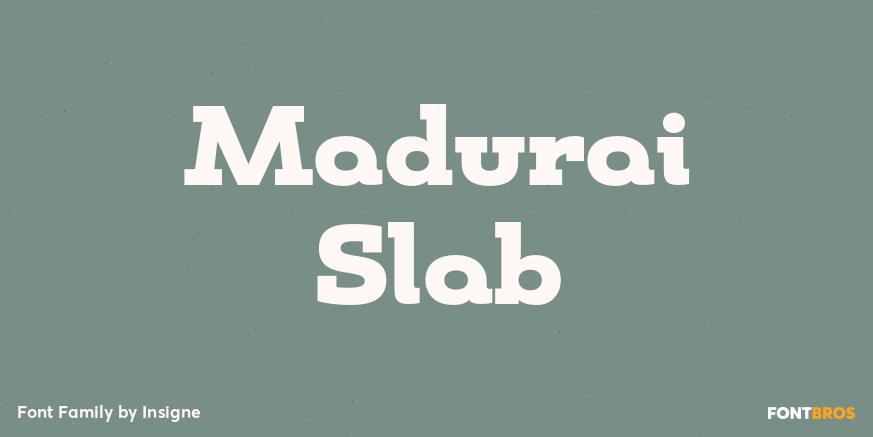
About Madurai Slab
Chennai\’s market-tested type styles have taken new form once again. The geometric forms of Chennai and its derivant Madurai, both successful in web-based applications and logotypes, have now been adapted for the superfamily Madurai Slab, a potent, square…